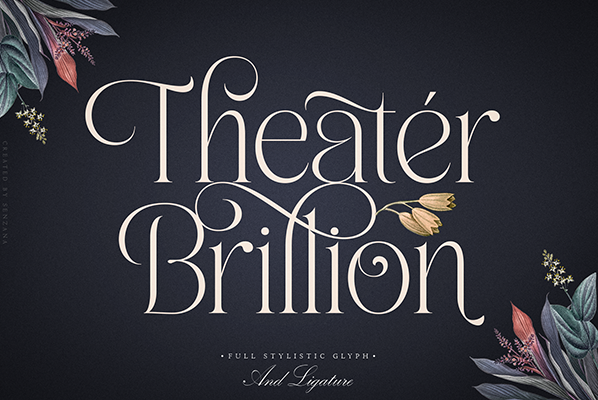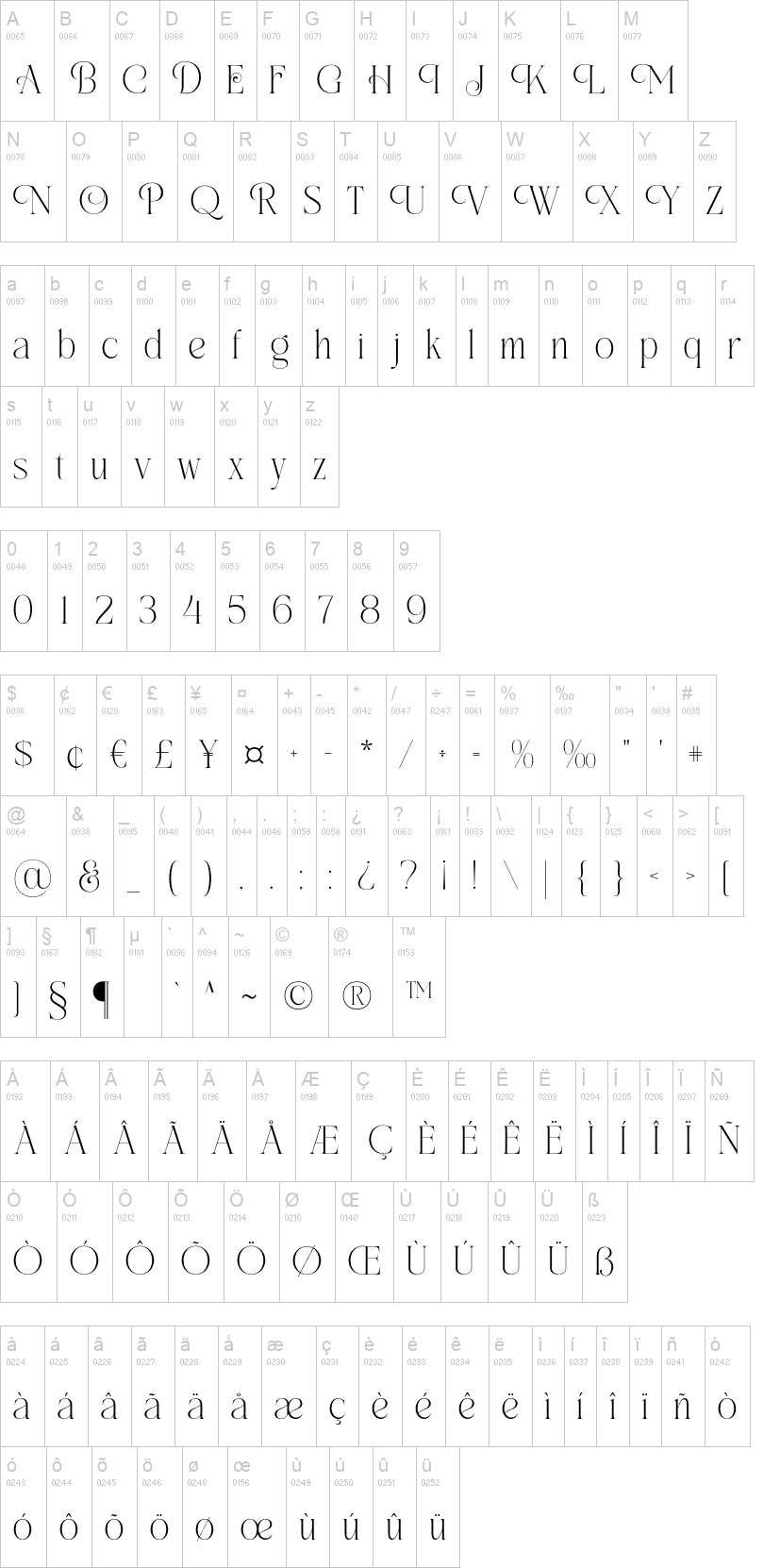
on this occasion I would like to introduce a new product. dubbed Theater Brillion, he is very classic and elegant. equipped with stylistics up to 288 glyphs, of course it will really help your work more attractive and beautiful.